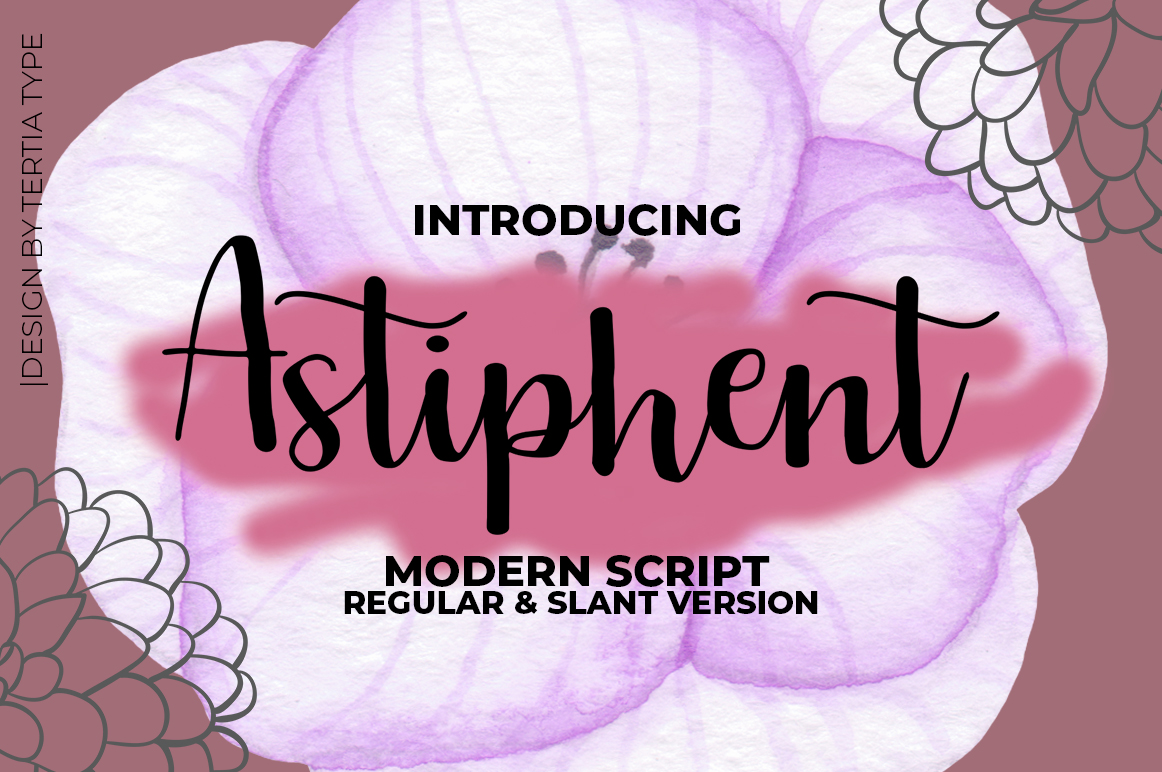
I still remember the project like it was yesterday. A client asked for a elegant, high-end brand identity, and I was tasked with finding the perfect font to bring it all together. I scoured the internet, tried out dozens of fonts, but nothing seemed quite right. That was until I stumbled upon Astiphent, a beautiful brush typeface that stole my heart. In this article, I’ll share my experience with Astiphent, its features, and how to make the most of it in your designs.
First Impressions: What I Love About Astiphent
So, what makes Astiphent so special? Here are a few things that caught my attention:
- ✨ Elegant brush strokes: Astiphent has a unique, hand-crafted feel that’s perfect for high-end brands or luxury projects.
- ✅ Tons of swashes: With numerous start and ending swashes, you can add a touch of sophistication to your typography.
- 🔍 Stylistic alternates: Astiphent comes with alternate characters, allowing you to mix and match to create a truly unique look.
- 💻 Slanted version: The font also includes a slanted version, perfect for adding some visual interest to your designs.
The Not-So-Perfect Font: A Few Quirks
While Astiphent is an amazing font, it’s not without its limitations. Here are a few things to keep in mind:
- 🤔 Limited use in body text: Due to its elegant, cursive nature, Astiphent might not be the best choice for long blocks of body text.
- ⚠️ Swash overload: With so many swashes to choose from, it’s easy to get carried away. Be mindful of your design and use them sparingly.
Putting Astiphent to Work: A Practical Guide
The Story Behind Astiphent: Designer Inspiration
While the true story behind Astiphent’s creation remains a mystery, it’s easy to imagine a designer sitting with a brush and ink, carefully crafting each letter. Perhaps they drew inspiration from classic calligraphy, modernizing it for the digital age. Whatever the story, Astiphent’s elegance and sophistication shine through.
| Font Name | Astiphent Font |
| What type of projects is Astiphent best suited for? | Astiphent is perfect for high-end brands, luxury projects, and elegant designs. |
| Can I use Astiphent for body text? | While possible, Astiphent is better suited for headlines and titles due to its elegant, cursive nature. |
| Is Astiphent a difficult font to use? | Not at all! Astiphent is user-friendly, and its features are easily accessible in most design software. |